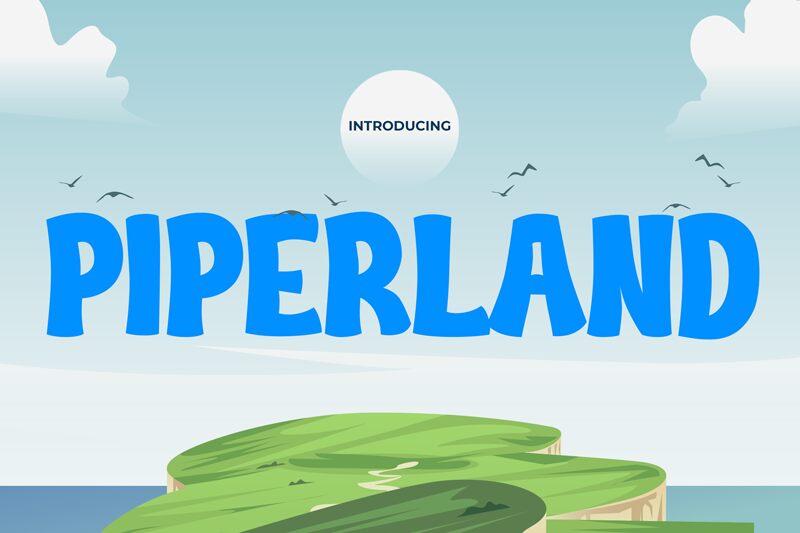
Piperland font by Pinisiart is a cartoon font with a playful effect. This is a free font in which each character uses circular patterns and line accents where needed. The funny elements are also achieved with its height and width, not to mention the waves that appear in some characters. With this mix, combining the characters can by itself makes the statement you’re looking for.
Piperland can be used for project titles and logos. It can also decorate social media posts and platforms, book covers, ads, flyers, and posters, especially when it comes to invitation cards for fun events.